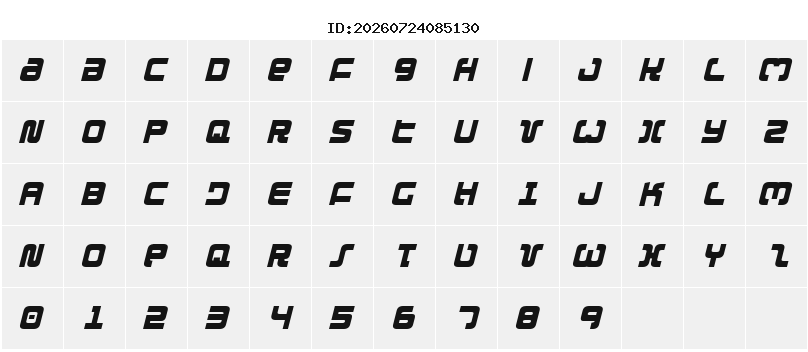
About Exedore Condensed Italic.ttf
Exedore Condensed Italic.ttf is a modern, elegant sans-serif font designed for ultimate readability and visual harmony. Perfect for branding, headlines, web design, and print materials.